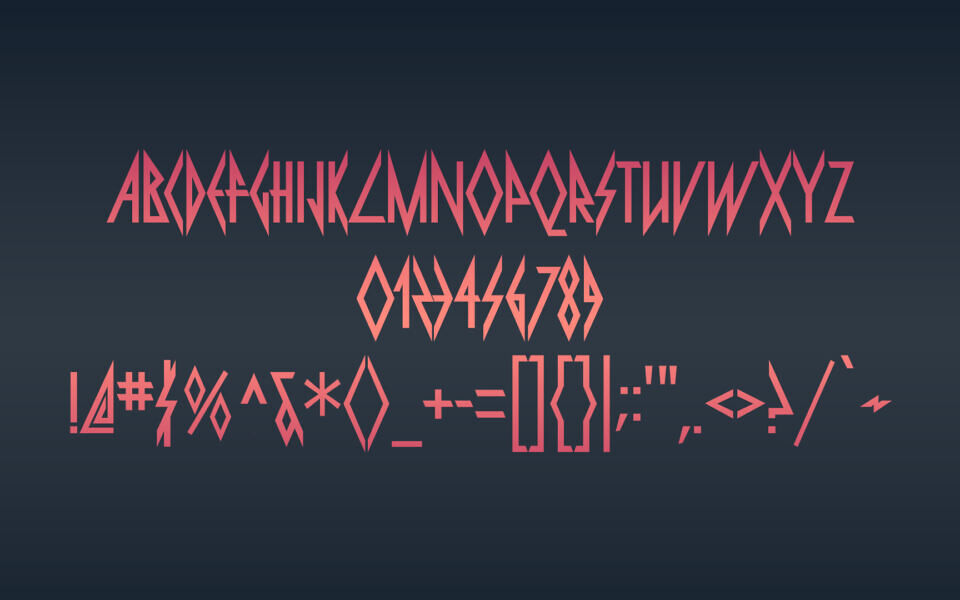
Pyrite Font
Pyrite is a heavy metal display typeface with angular characters. In OpenType-aware programs, the bottom stroke of the L will alter depending on which letter comes after it. Ligatures for LL and OO pairs have been included.